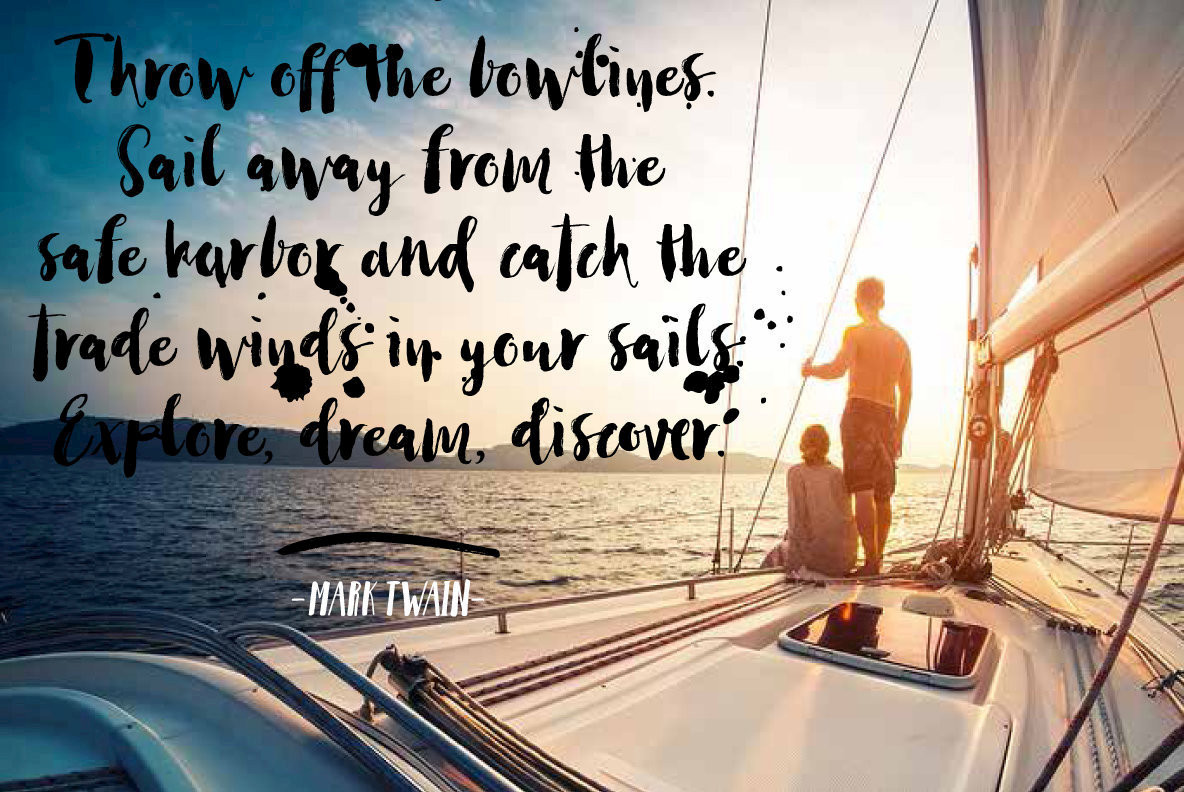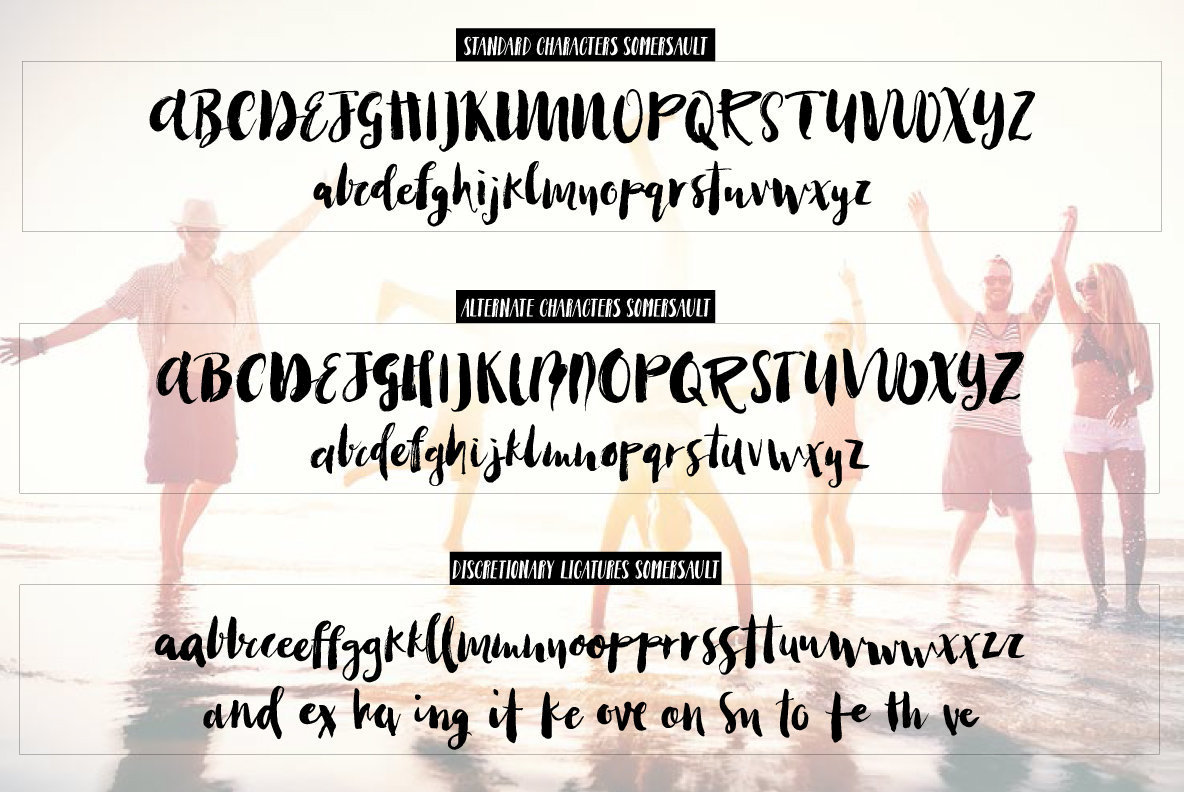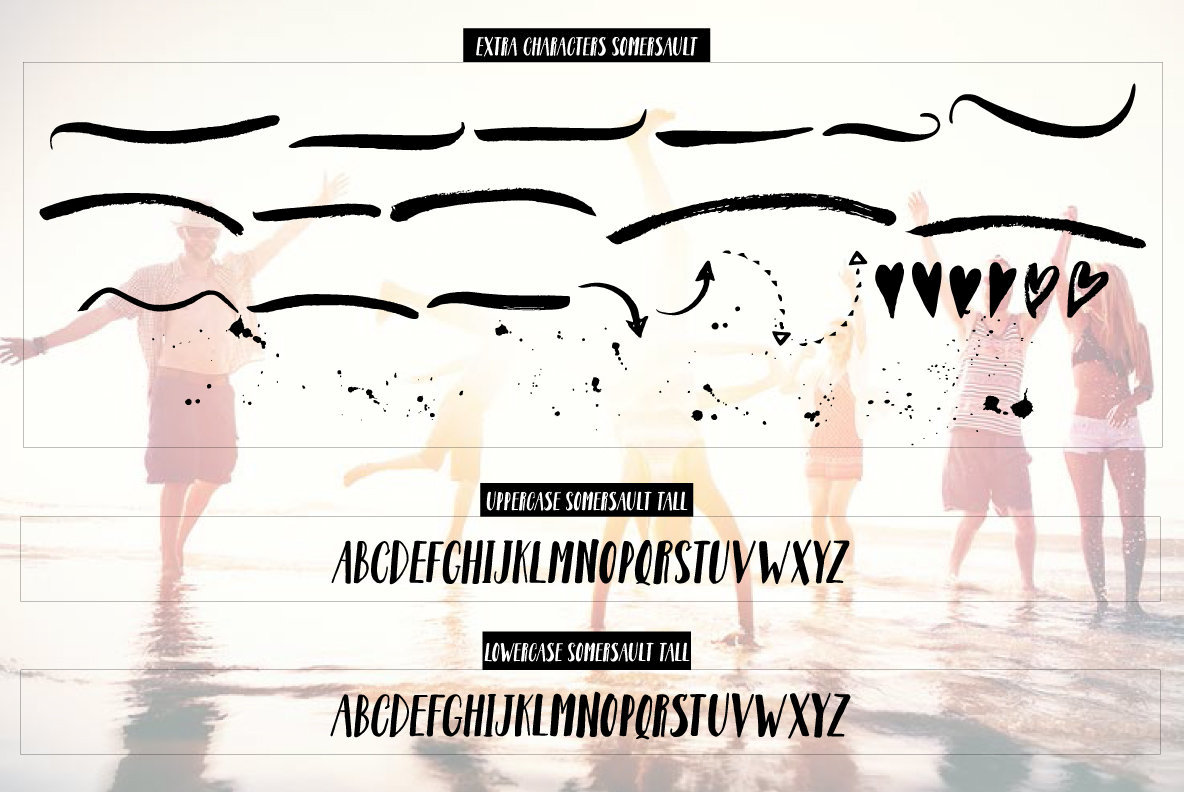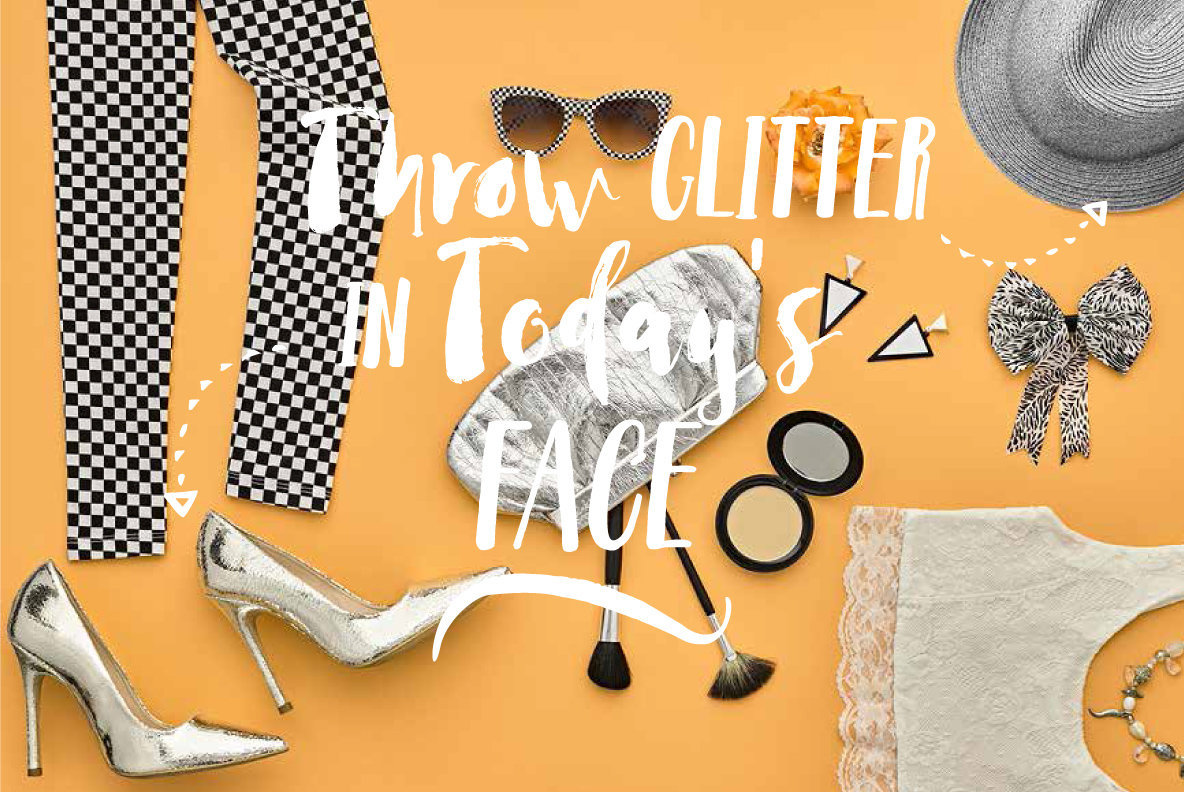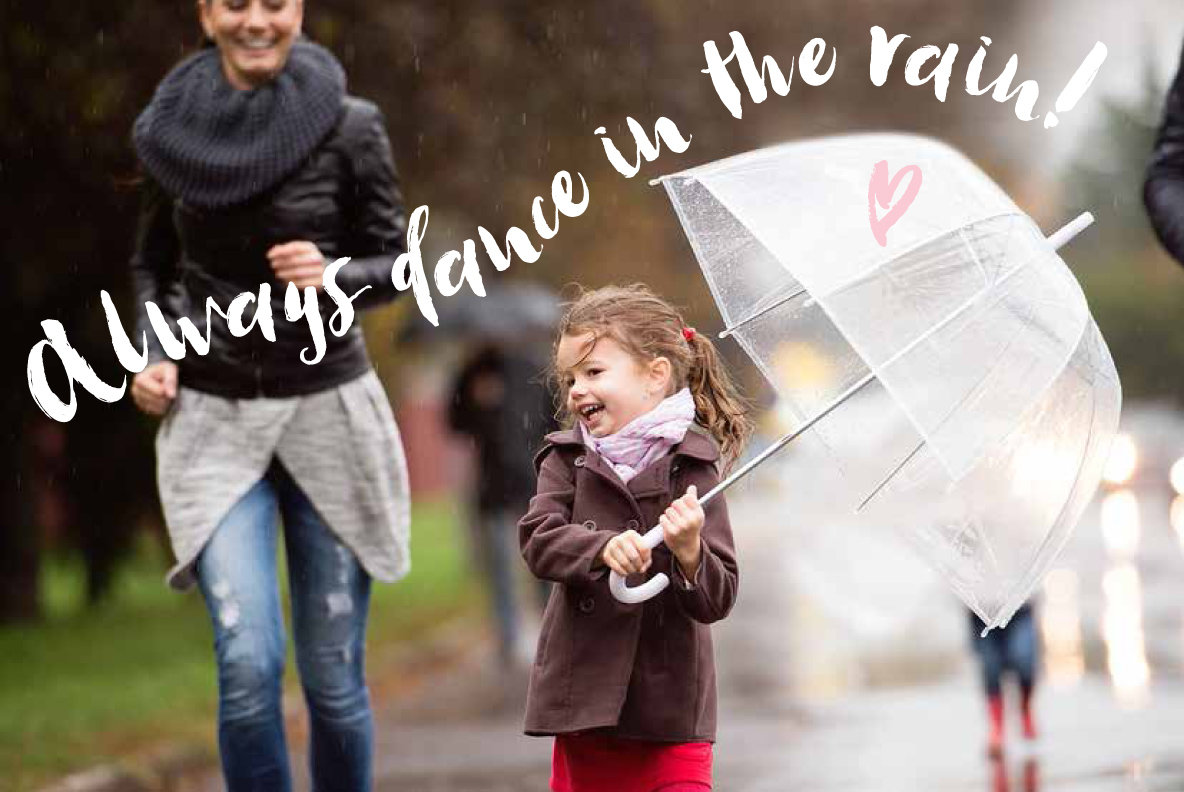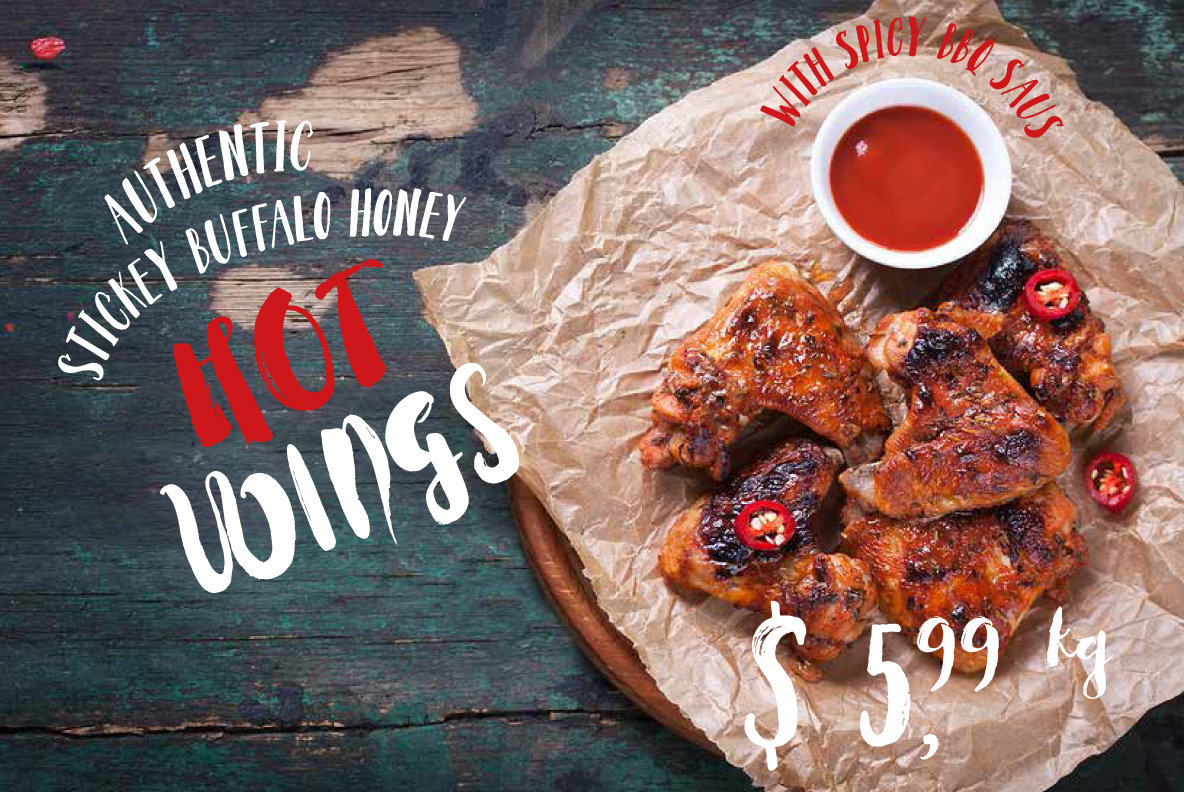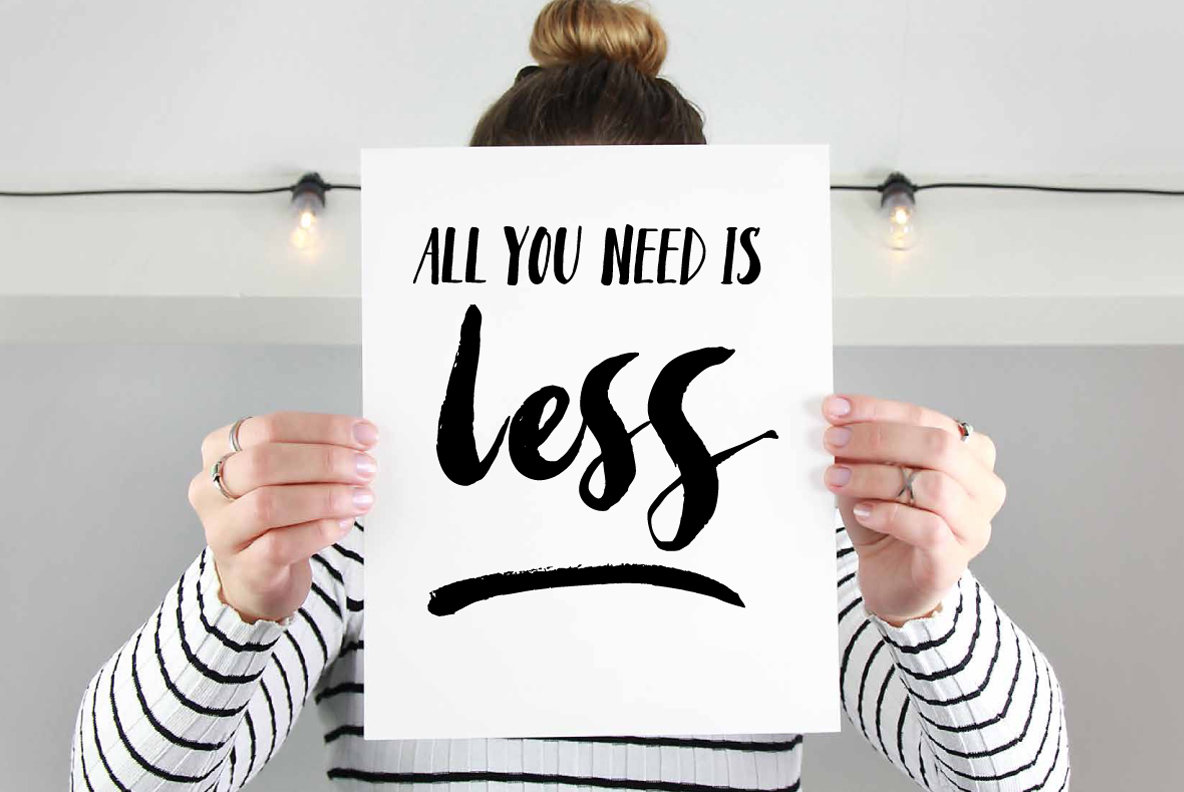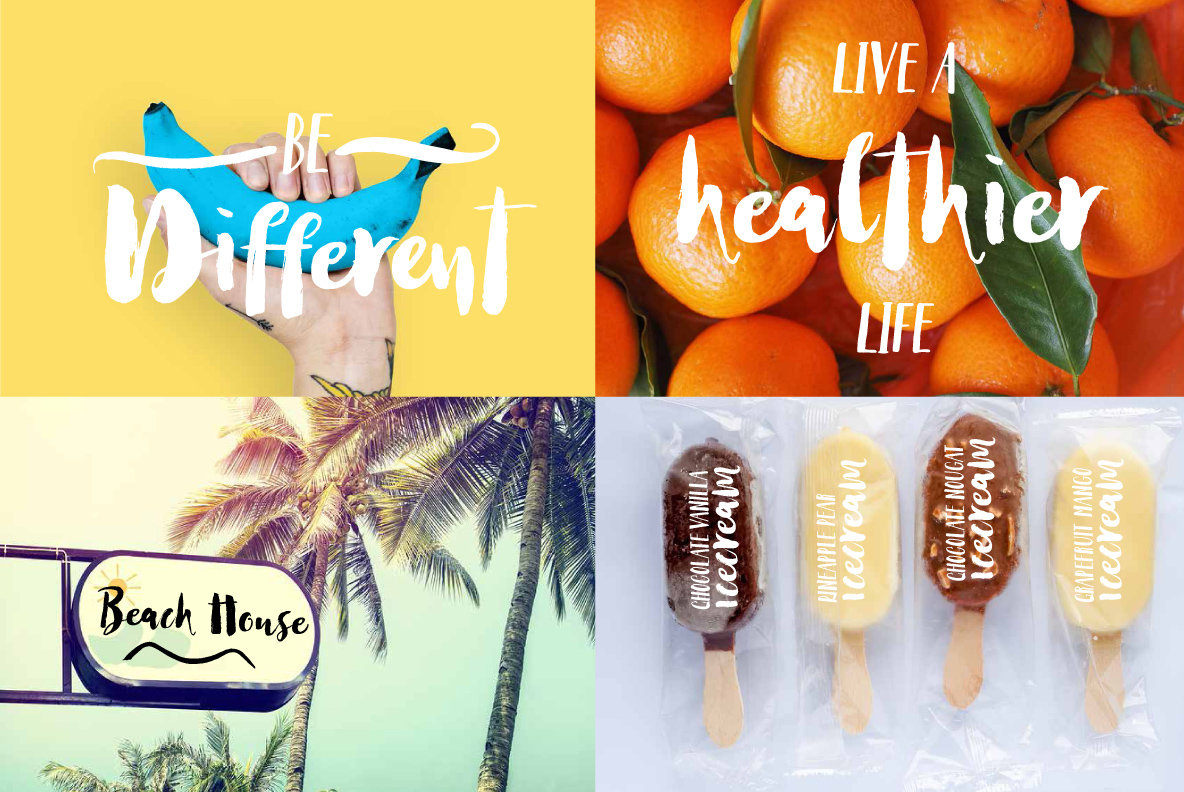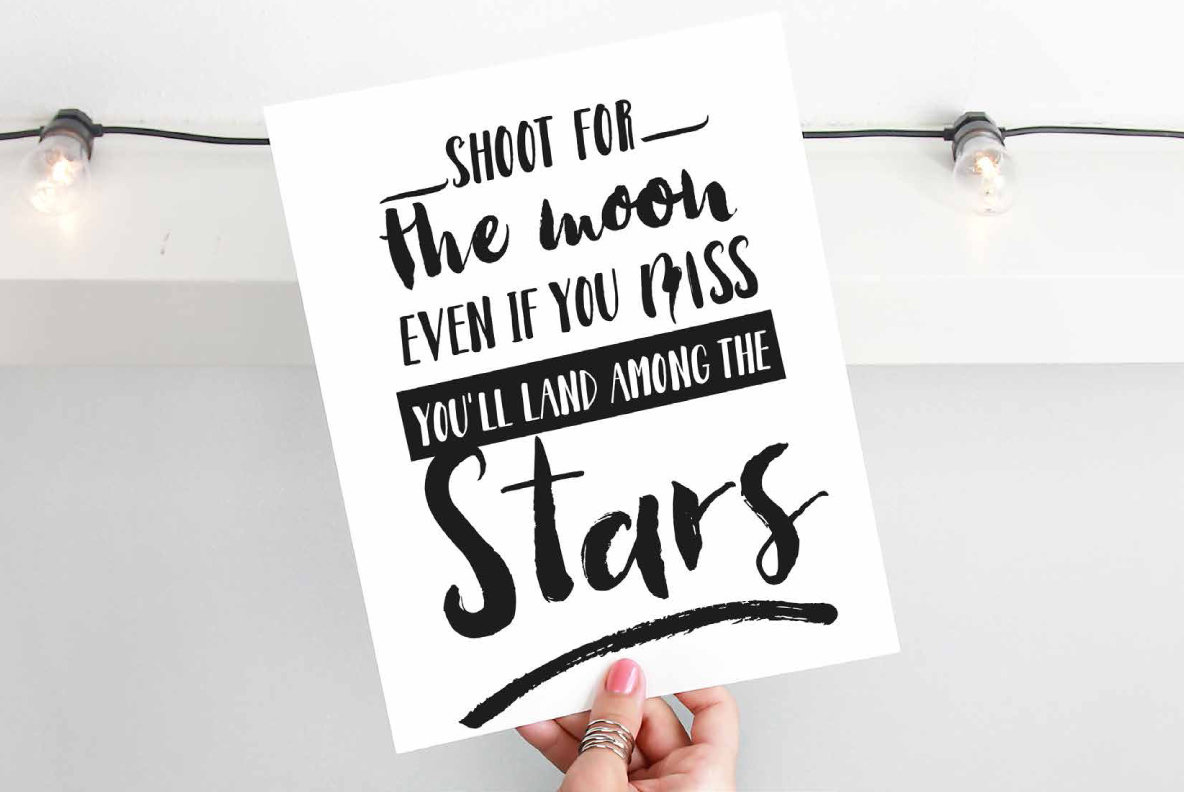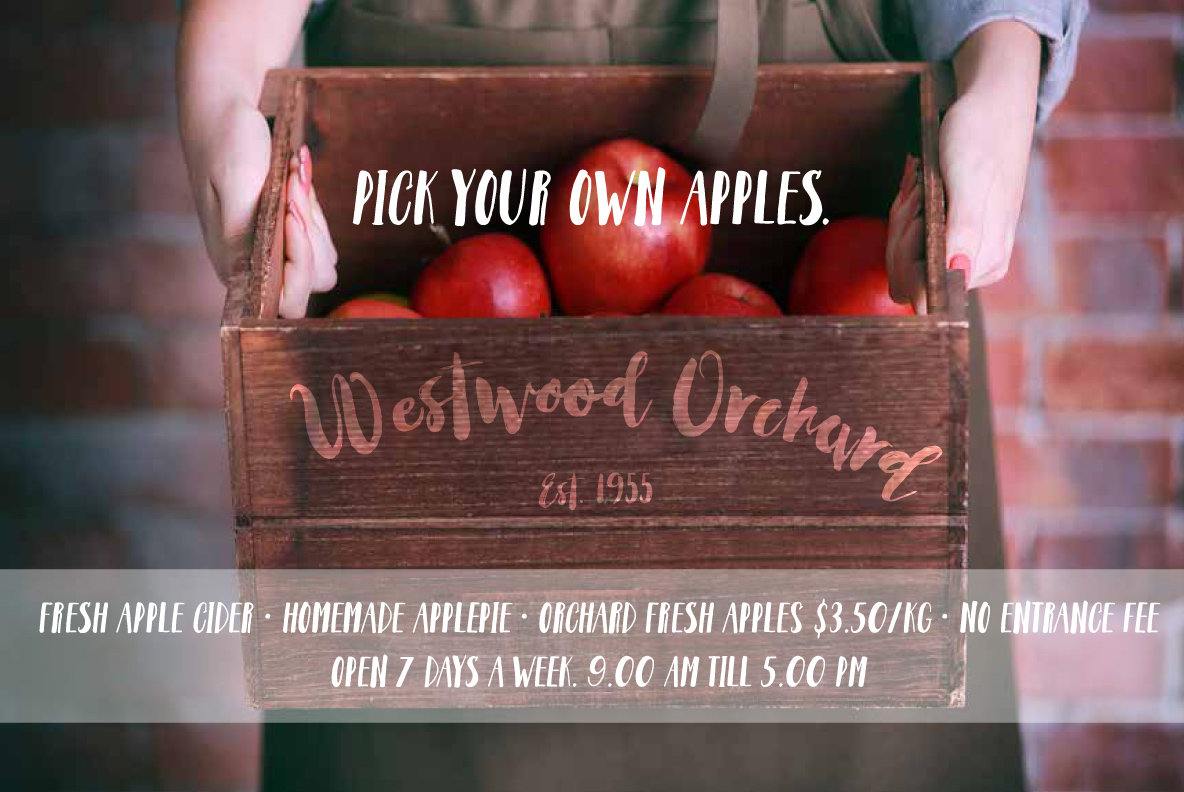
Somersault is a nonchalant, rough edged, hand painted, brush font, with a spontaneous personality. With its natural charm it brings cheer and lightness to any design.
Alternate characters for upper and lowercase letters and lots of ligatures enable you to avoid repetition of identical glyphs.They are managed by Opentype features such as stylistic alternates, swashes and discretionary ligatures. Somersault also comes with some fun extra's like strokes, hearts and splatters to play with. Somersault is PUA encoded, so no special design software is needed to access all glyphs. You can easily access all of them in Fontbook (Mac) or Character map (Windows).
Somersault is paired with Somersault Tall, a complementary all caps font. The result is a versatile font duo. A perfect match.